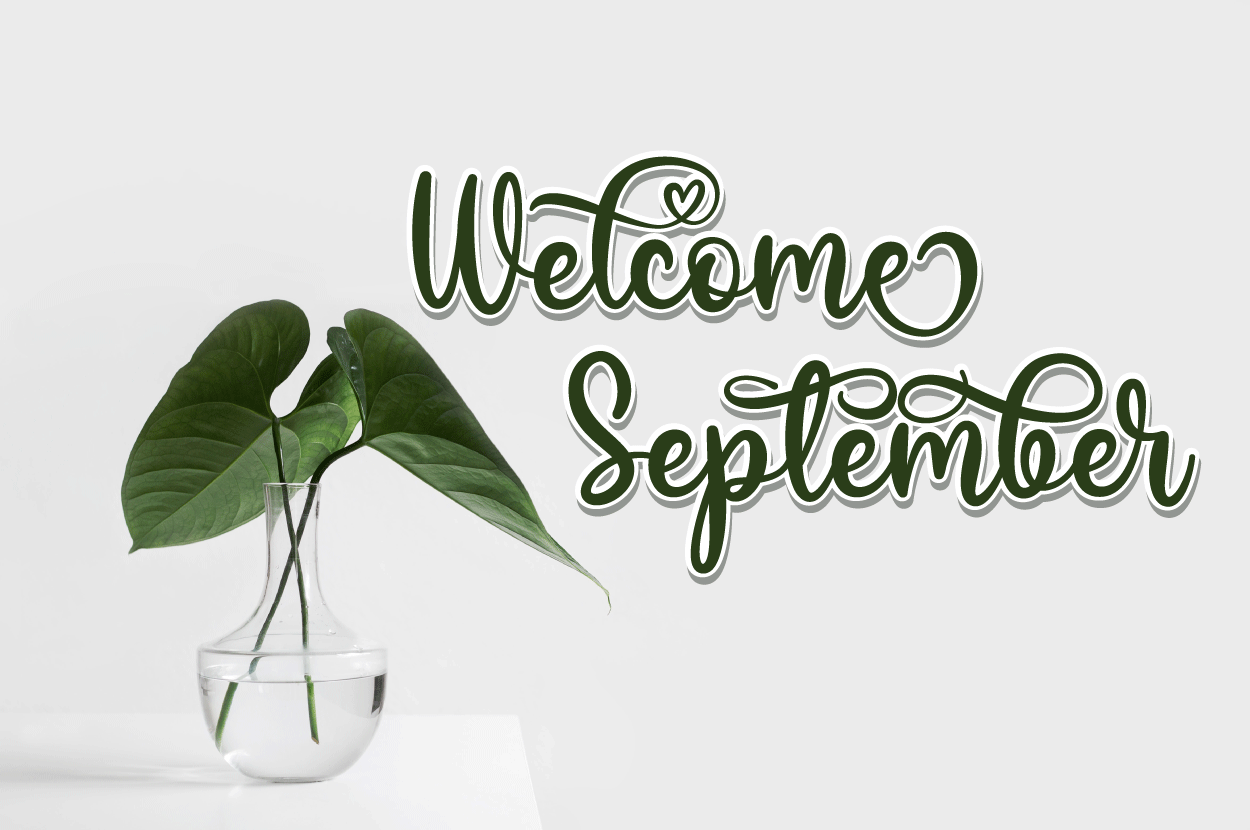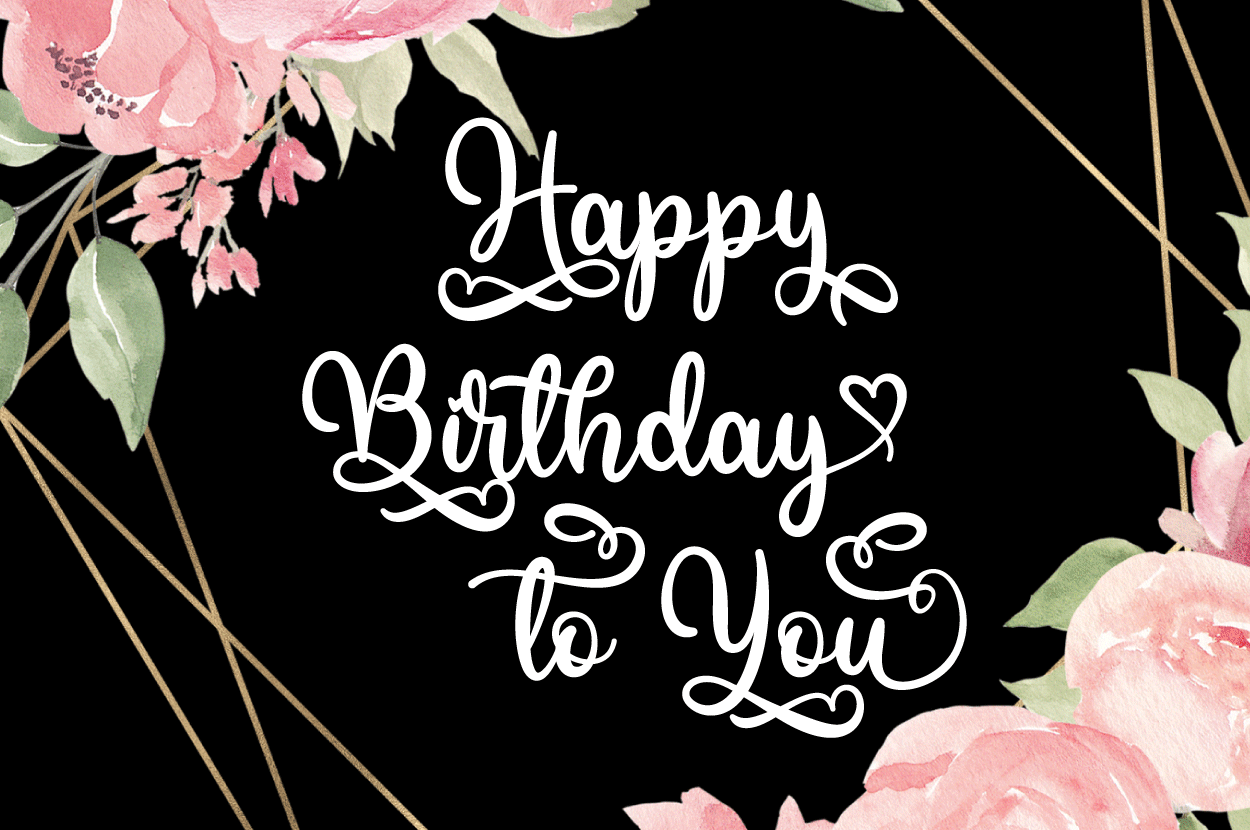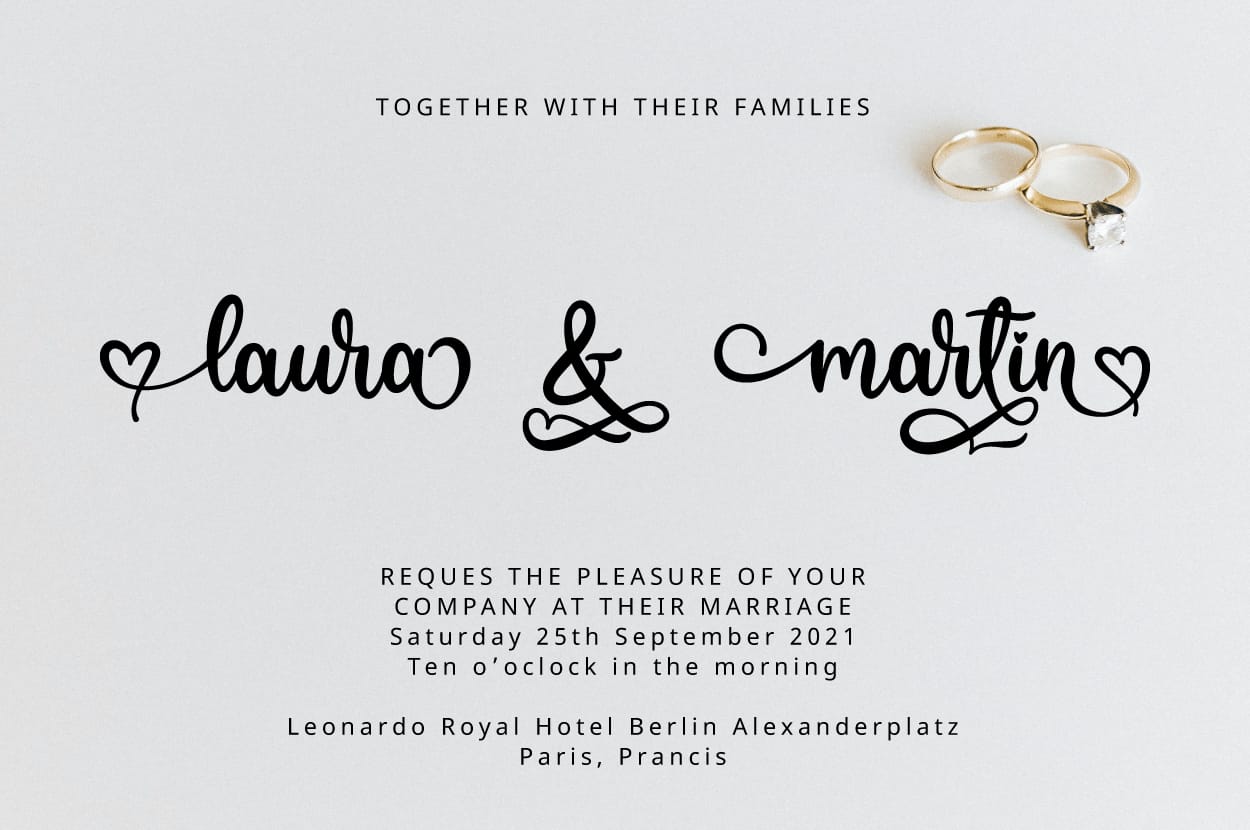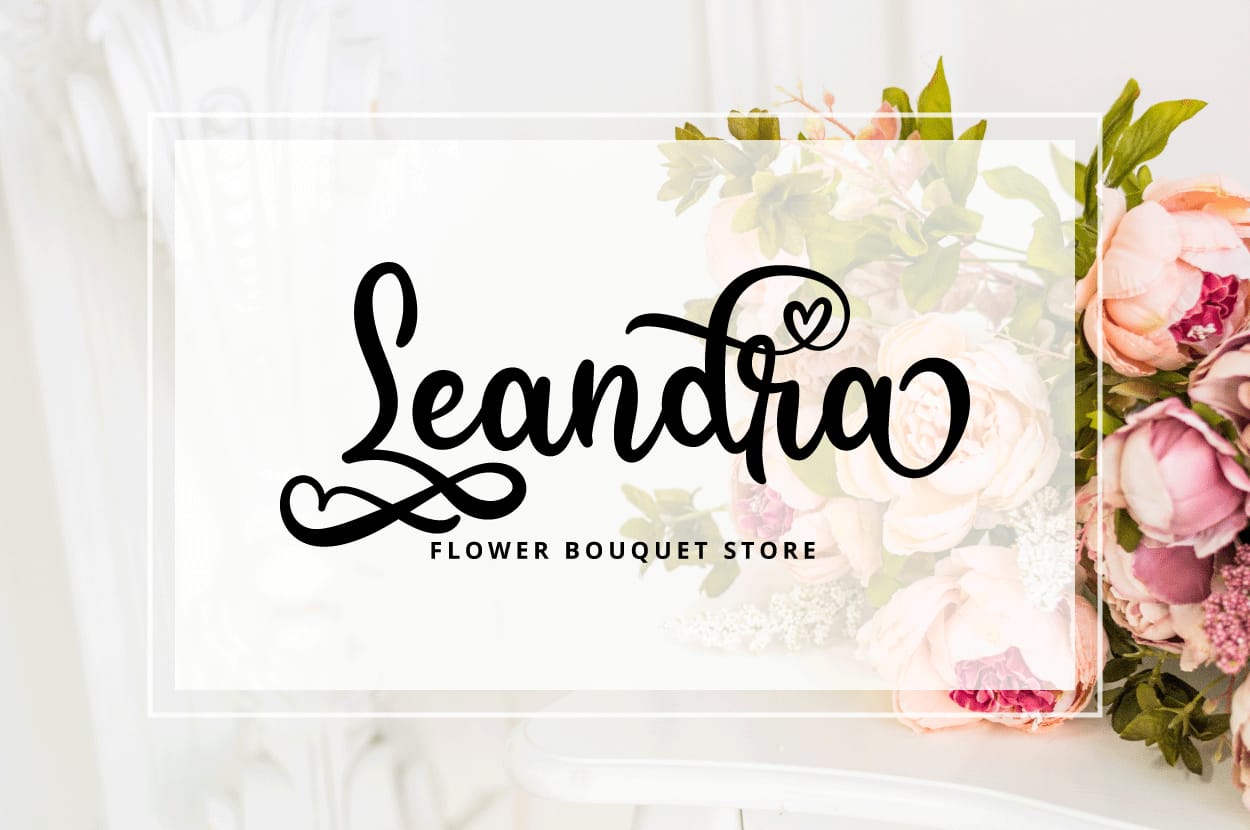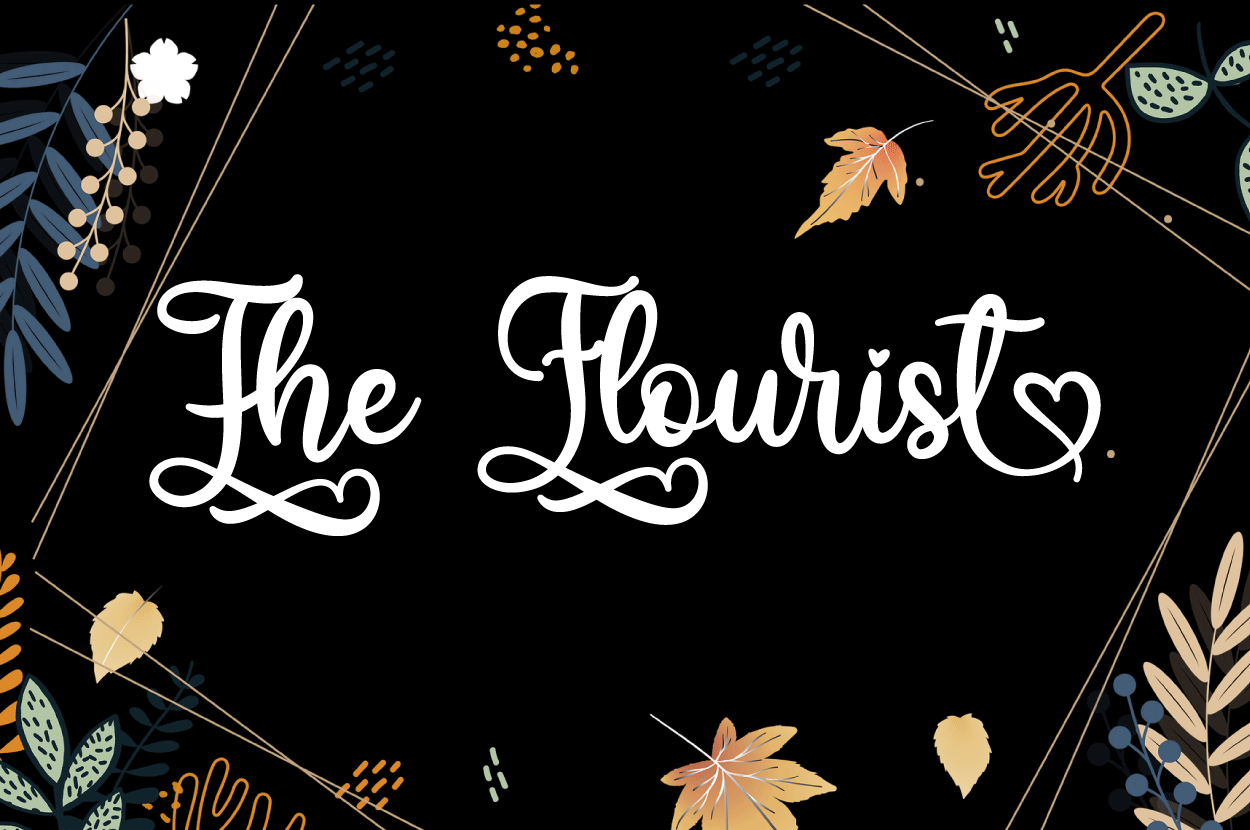
Valeska Lovely Script Font
Valeska is modern calligraphy style. Its friendly feel makes this font incredibly versatile, fitting a wide range of contexts. It looks stunning on thank you cards, quotes, greeting cards, logos, business cards and every other design which needs of a art. Add it to your creative ideas and notice how it makes them stand out!